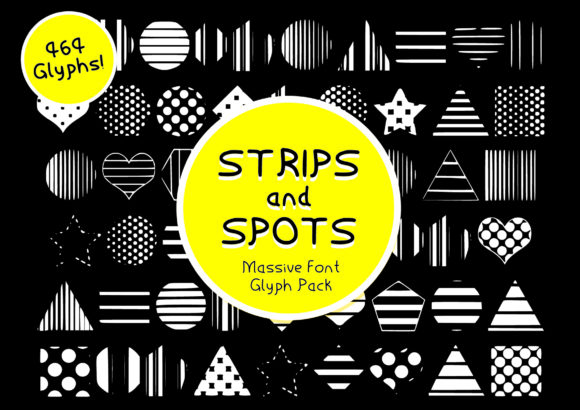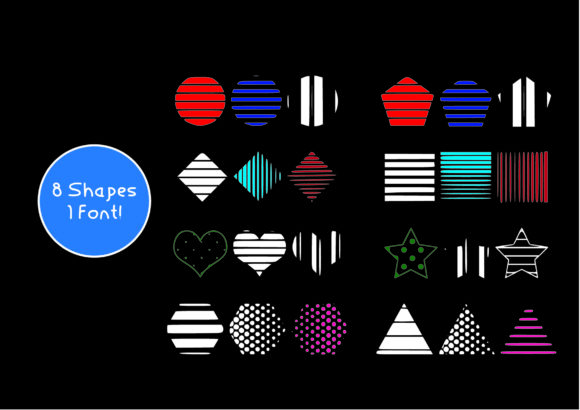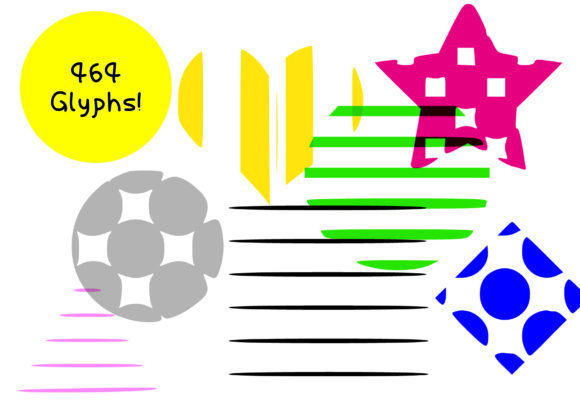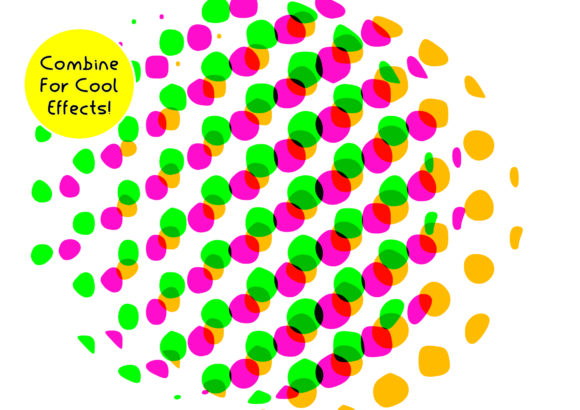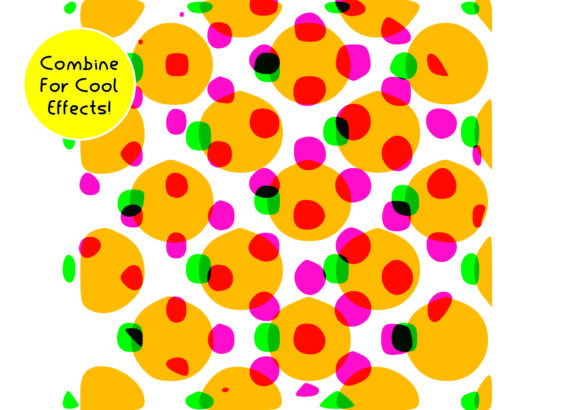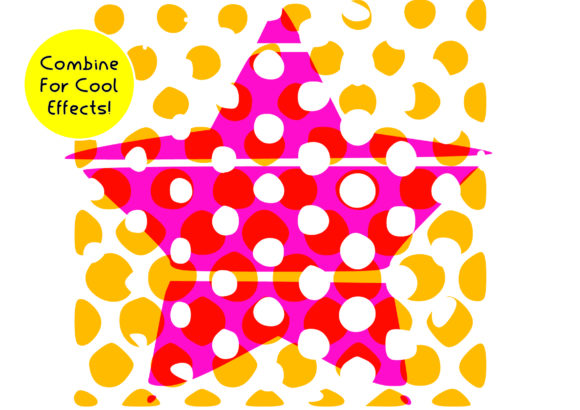
Strips & Spots Font
About Strips & Spots Font
Strips & Spots is an exciting and versatile dingbats font that offers a wide range of creative possibilities. With 464 amazing glyphs at your disposal, you can let your imagination run wild and create captivating designs. Here are a few ideas on how to make the most of this font:
1. Pattern Creation: Use the glyphs to create unique patterns. Whether you’re working on textiles, wallpapers, or digital backgrounds, combine the strips and spots to form visually appealing and eye-catching patterns. Experiment with different combinations and colors to achieve the desired effect.
2. Decorative Elements: Enhance your designs by incorporating the glyphs as decorative elements. They can be used to add borders, frames, or dividers in various creative projects such as posters, invitations, or greeting cards. Mix and match different glyphs to create interesting and dynamic compositions.
3. Text Effects: Add a touch of creativity to your typography by using the glyphs as embellishments for letters or words. Place the strips and spots within or around the letters to create unique text effects. This can be particularly effective for headlines, logos, or branding materials.
4. Background Elements: Use the glyphs as background elements to add visual interest to your designs. Scatter the strips and spots across the background or arrange them in a specific pattern to create a textured and dynamic backdrop for your artwork.
5. Collage Art: Combine the glyphs with other design elements to create intricate and captivating collages. Layer them with photographs, illustrations, or other graphics to achieve a mixed-media effect that stands out.
Remember to experiment and play around with the glyphs to discover new and exciting design possibilities. With Strips & Spots, you have a versatile tool to add a fun and creative touch to your projects!